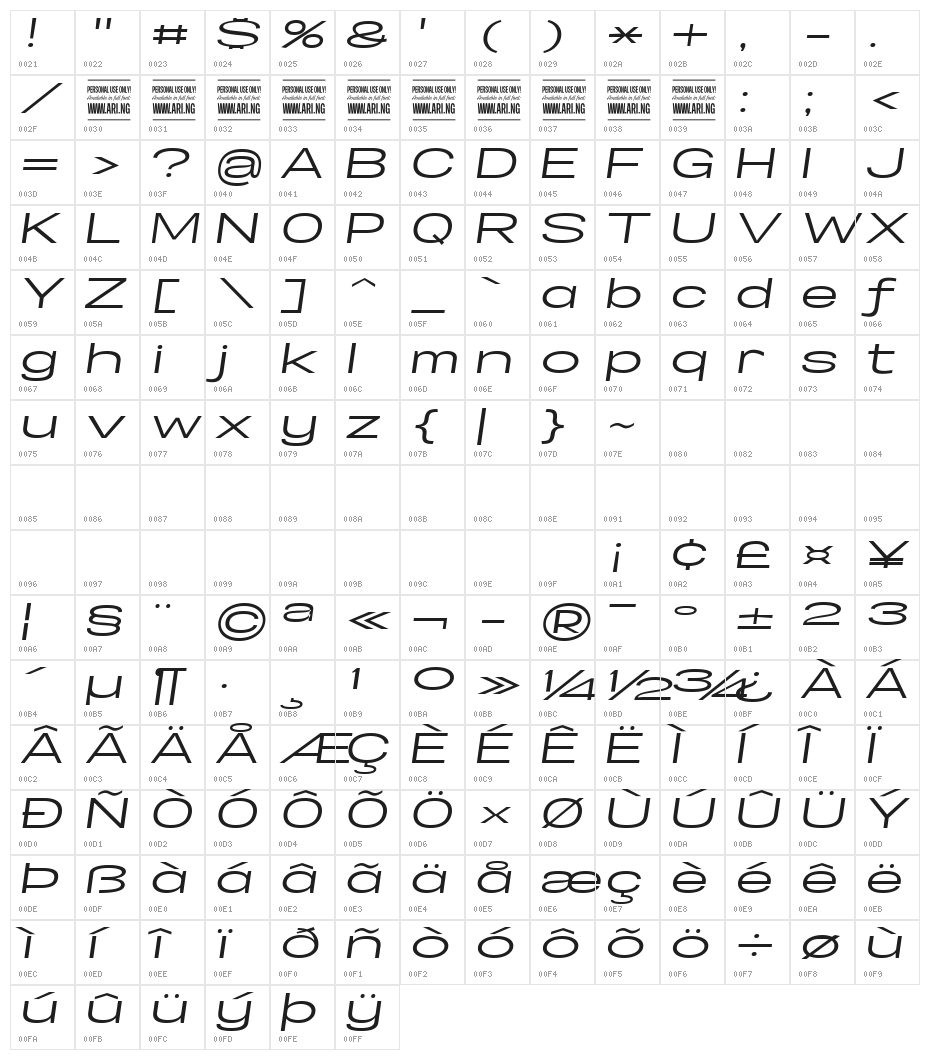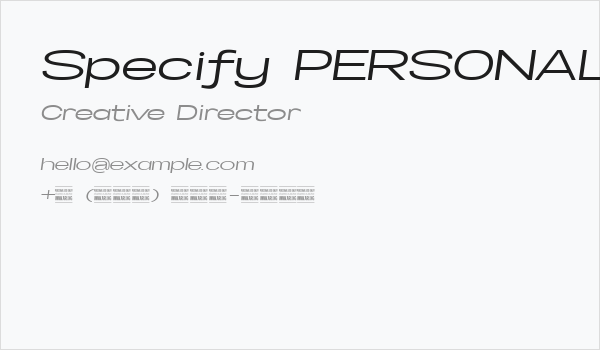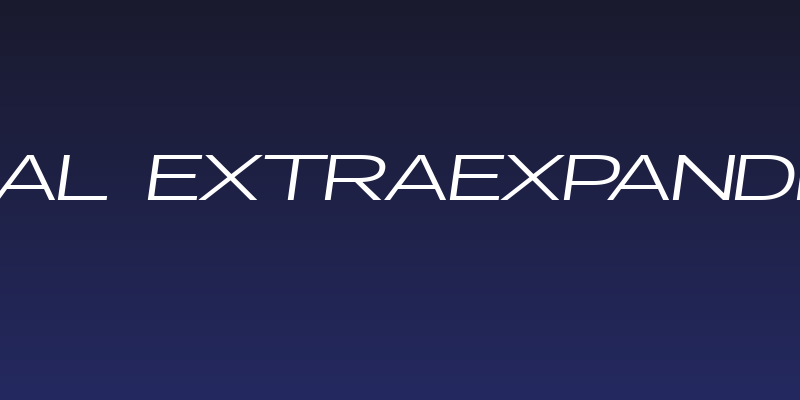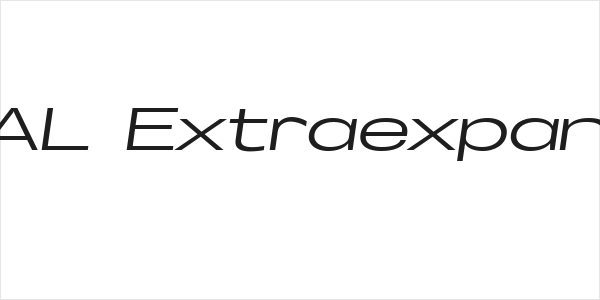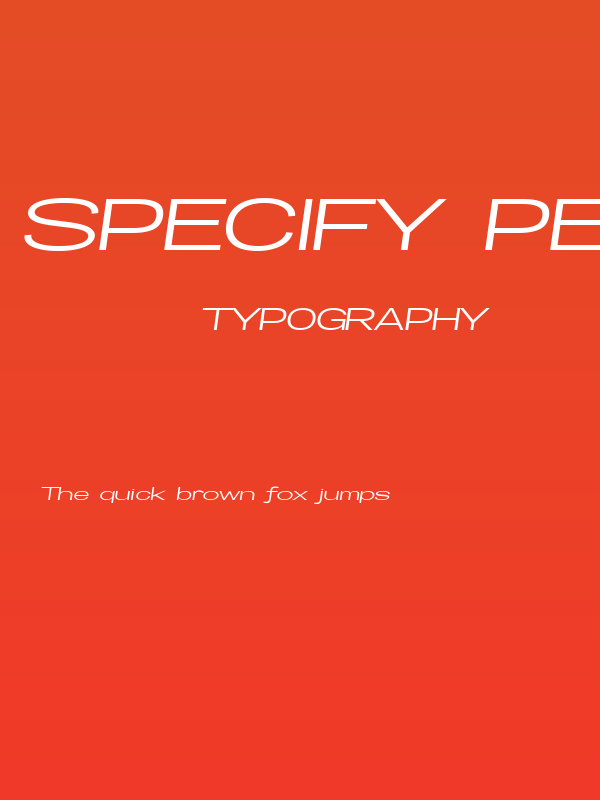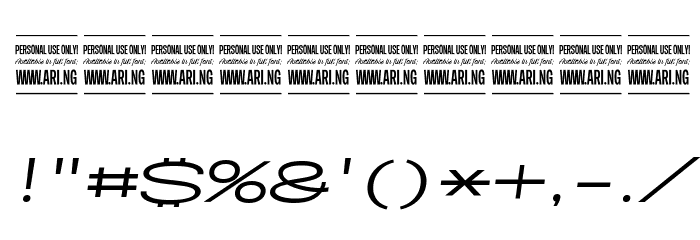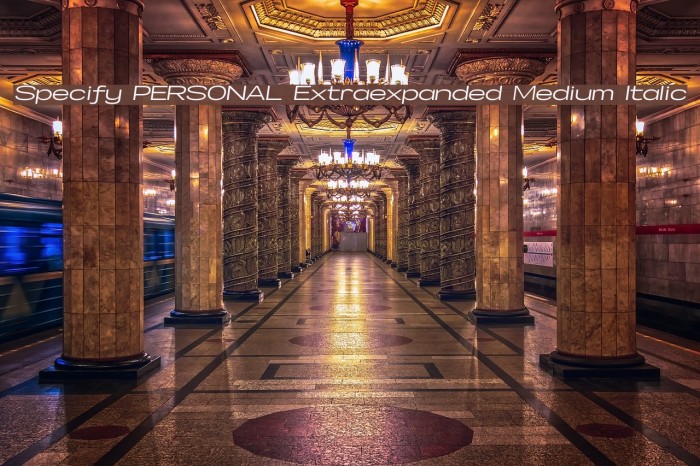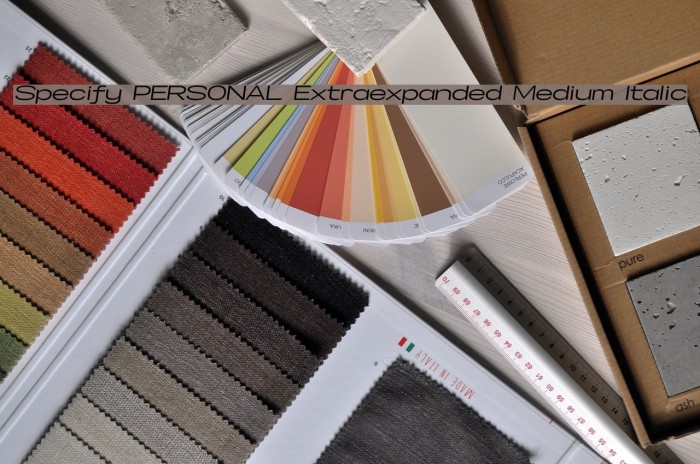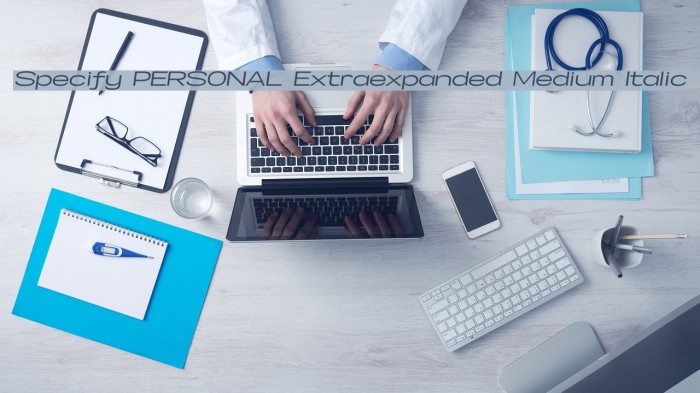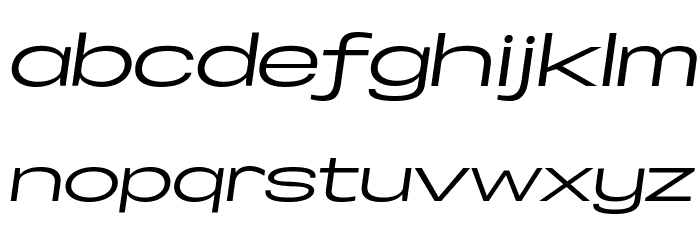
Specify PERSONAL Extraexpanded Medium Italic Font
Specify PERSONAL Extraexpanded Medium Italic Description
This font features an extra-expanded width with a sleek, modern design. The italic style adds a dynamic and forward-leaning appearance, making it suitable for contemporary projects. The characters are evenly spaced, providing a clean and organized look. The medium weight ensures readability while maintaining a stylish aesthetic. The font's smooth curves and sharp edges create a balanced contrast, enhancing its visual appeal. It includes a full set of uppercase and lowercase letters, numbers, and a variety of special characters, making it versatile for various design needs.
| Proposed Projects | Ideal for branding, advertising, and editorial design projects that require a modern and dynamic look. |